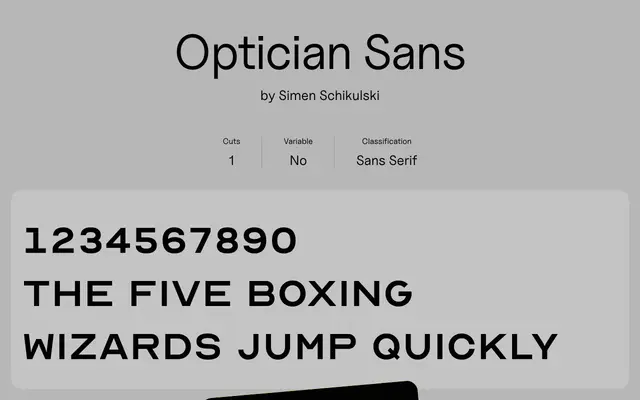
Optician Sans
A single-cut sans based on the letterforms found on standard optician eye charts, released under the SIL Open Font License.
Drawn from the letter shapes used on optician eye test charts, this typeface carries an unusual conceptual grounding that sets it apart from generic geometric sans designs. Available in a single cut with no italic or variable axis, it is a focused, no-frills release suited to projects that want its specific cultural reference. Licensed under SIL OFL 1.1, it is free for both personal and commercial use.
Classified as Sans Serif by the foundry; Optician Sans is based on the letter forms used on standard optician eye charts, giving it a geometric, constructed character rooted in functional signage.